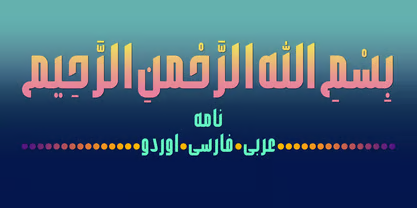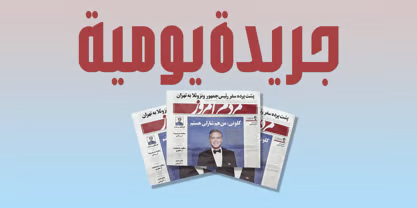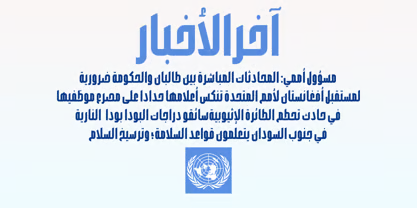
Nameh Font
Nameh—meaning “letter” or “epistle” in Persian—is a thoughtfully crafted typeface that brings together three major Islamic calligraphic traditions in a design that evokes the beauty of handwritten correspondence. With its elegant proportions and comprehensive language support, this font allows you to create sophisticated projects that flow seamlessly across Persian, Arabic, and Urdu scripts.
Design Characteristics:
• Elegant, refined Persian, Arabic, and Urdu letterforms
• Balanced proportions for excellent readability
• Sophisticated design with handwritten warmth
• Refined character suitable for formal and creative applications
• Distinctive yet approachable aesthetic
Persian (Farsi) Script:
• Complete Persian character set
• Full support for Persian-specific characters (گ، چ، پ، ژ)
• Correct representation of Persian numerals
• Proper character connections and positioning
• Elegant styling across all letters
Arabic Script:
• Coordinated Arabic design matching Persian style
• Complete Arabic character set
• Full support for Arabic diacritics and marks
• Harmonious weight and proportion
Urdu Script:
• Proper Urdu character set including specific letters
• Support for Urdu numerals and punctuation
• Correct representation with regional authenticity
• Seamless integration with Persian and Arabic
• Multilingual Publishing: Books and publications spanning multiple languages
• Regional Branding: Cohesive identities across Persian, Arabic, and Urdu markets
• Cultural Projects: Designs celebrating regional heritage
• Islamic Content: Religious materials for diverse audiences
• Website Design: Trilingual sites serving diverse readers
• Print Materials: Brochures, flyers, and magazines
• Packaging: Product labels for regional distribution
• Logos: Memorable wordmarks with cultural resonance
• Correspondence: Elegant letters and communications
• Three Scripts, One Design: Consistent visual identity across Persian, Arabic, and Urdu
• Elegant Character: Refined, sophisticated letterforms
• Comprehensive Support: All characters for all three languages
• Professional Quality: High-caliber font for commercial use
• Handwritten Warmth: Personal, approachable feel
• Time-Saving: One font for multiple languages—no mixing required
Key Features of Nameh Font:
• Complete support for Persian (Farsi), Arabic, and Urdu scripts
• Elegant design with handwritten warmth
• Full character sets for each script
• Perfect for trilingual and cultural design projects
• Graphic designers working across Iranian, Arab, and South Asian markets
• Publishers creating multilingual books and materials
• Web designers building trilingual websites
• Cultural and heritage project designers
• Islamic content creators
• Anyone needing elegant, warm multilingual typography